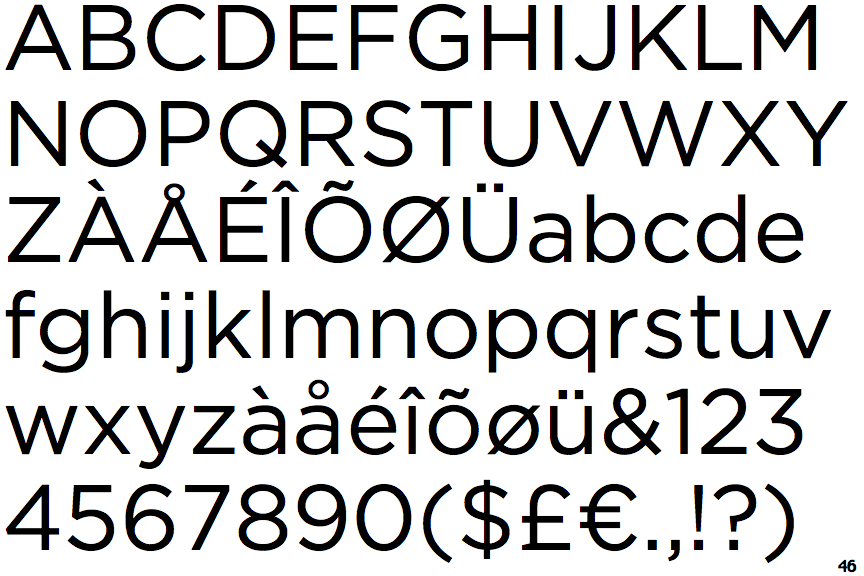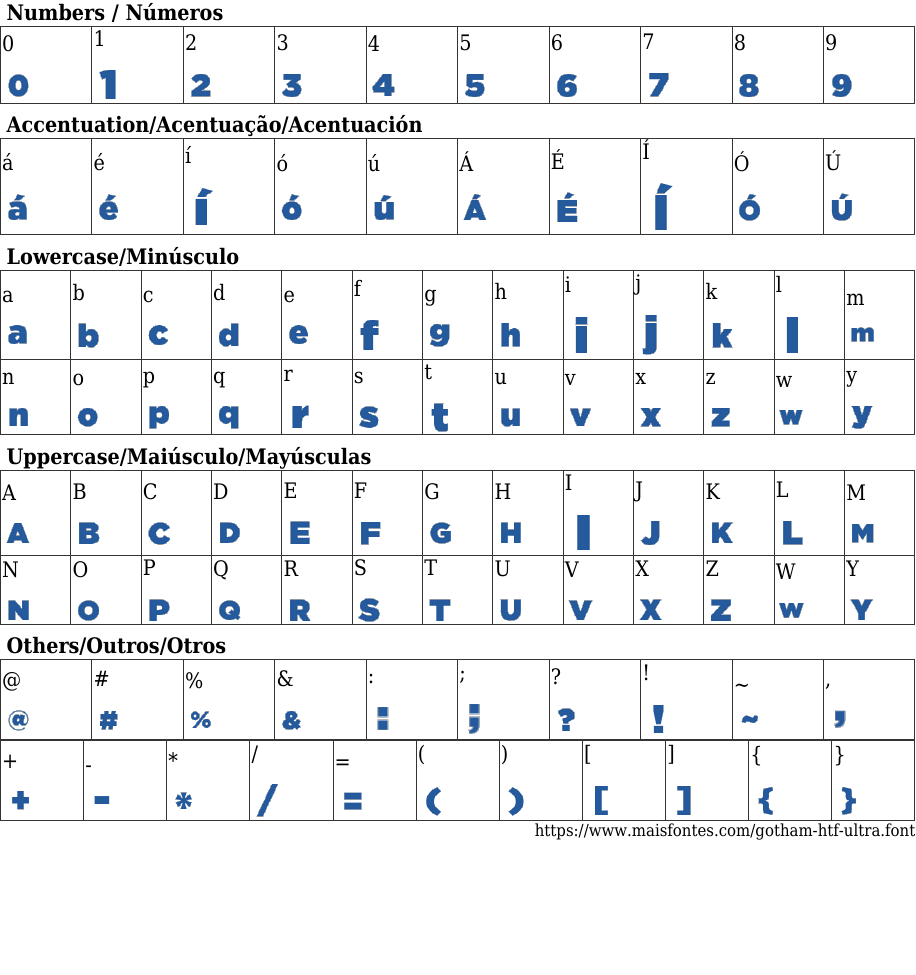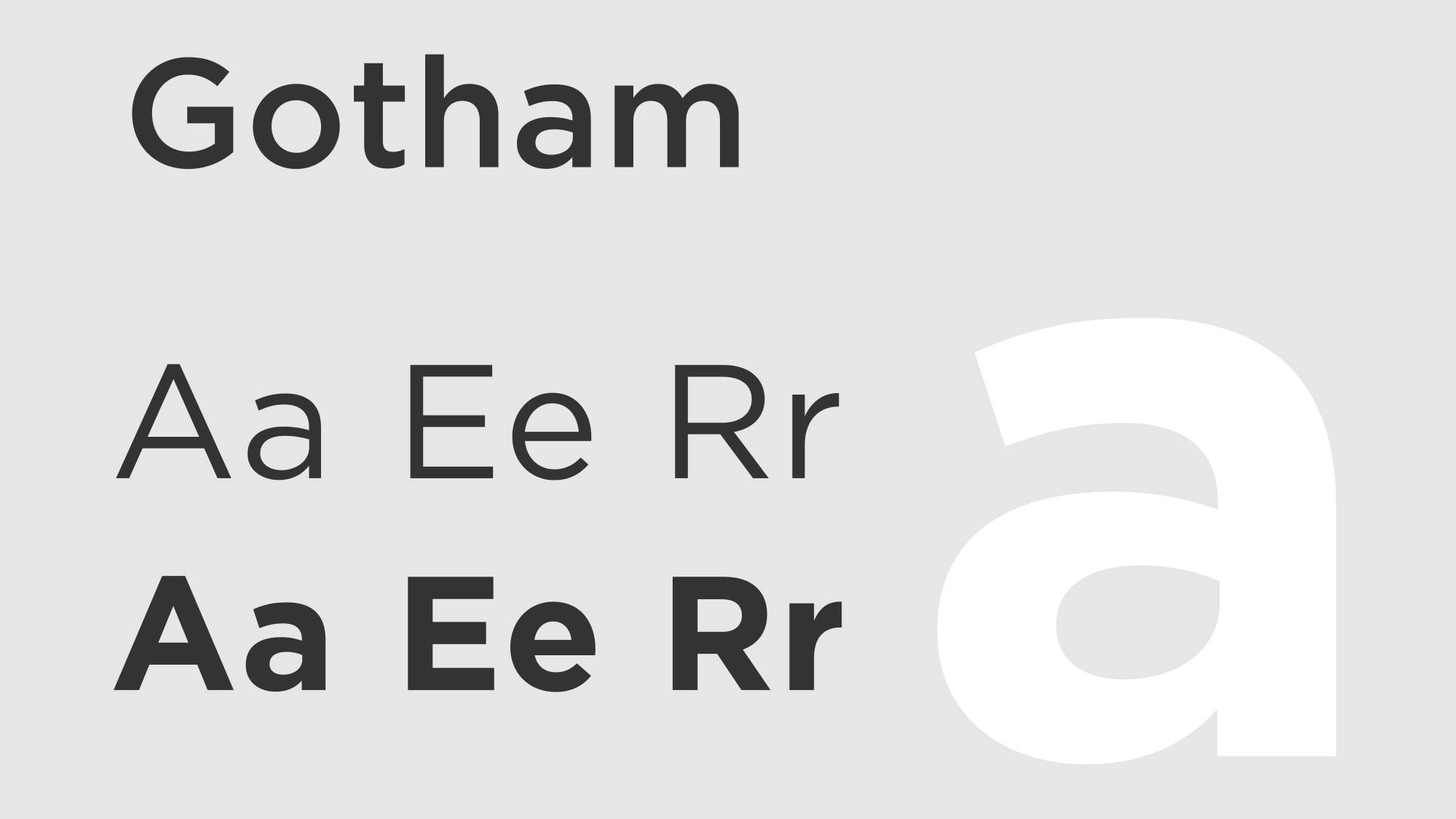
Htf Gotham Font - 'find my font' is an easy to use application for identifying fonts in digital images. Gotham htf font family series mainly provide medium italic,medium,bold italic,bold and other font styles. Here are some fonts similar to gotham htf. Gotham htf simply means an old version of the gotham typeface.
Gotham htf simply means an old version of the gotham typeface. Here are some fonts similar to gotham htf. 'find my font' is an easy to use application for identifying fonts in digital images. Gotham htf font family series mainly provide medium italic,medium,bold italic,bold and other font styles.
Gotham htf simply means an old version of the gotham typeface. 'find my font' is an easy to use application for identifying fonts in digital images. Here are some fonts similar to gotham htf. Gotham htf font family series mainly provide medium italic,medium,bold italic,bold and other font styles.
Here are some fonts similar to gotham htf. Gotham htf font family series mainly provide medium italic,medium,bold italic,bold and other font styles. Gotham htf simply means an old version of the gotham typeface. 'find my font' is an easy to use application for identifying fonts in digital images.
Gotham htf font family series mainly provide medium italic,medium,bold italic,bold and other font styles. Here are some fonts similar to gotham htf. 'find my font' is an easy to use application for identifying fonts in digital images. Gotham htf simply means an old version of the gotham typeface.
Gotham htf simply means an old version of the gotham typeface. 'find my font' is an easy to use application for identifying fonts in digital images. Here are some fonts similar to gotham htf. Gotham htf font family series mainly provide medium italic,medium,bold italic,bold and other font styles.
Here are some fonts similar to gotham htf. 'find my font' is an easy to use application for identifying fonts in digital images. Gotham htf simply means an old version of the gotham typeface. Gotham htf font family series mainly provide medium italic,medium,bold italic,bold and other font styles.
Gotham htf font family series mainly provide medium italic,medium,bold italic,bold and other font styles. 'find my font' is an easy to use application for identifying fonts in digital images. Gotham htf simply means an old version of the gotham typeface. Here are some fonts similar to gotham htf.
Here are some fonts similar to gotham htf. Gotham htf font family series mainly provide medium italic,medium,bold italic,bold and other font styles. 'find my font' is an easy to use application for identifying fonts in digital images. Gotham htf simply means an old version of the gotham typeface.
Here are some fonts similar to gotham htf. Gotham htf font family series mainly provide medium italic,medium,bold italic,bold and other font styles. Gotham htf simply means an old version of the gotham typeface. 'find my font' is an easy to use application for identifying fonts in digital images.
Gotham htf simply means an old version of the gotham typeface. Here are some fonts similar to gotham htf. Gotham htf font family series mainly provide medium italic,medium,bold italic,bold and other font styles. 'find my font' is an easy to use application for identifying fonts in digital images.
Gotham htf font family series mainly provide medium italic,medium,bold italic,bold and other font styles. Gotham htf simply means an old version of the gotham typeface. 'find my font' is an easy to use application for identifying fonts in digital images. Here are some fonts similar to gotham htf.
Gotham Htf Simply Means An Old Version Of The Gotham Typeface.
Gotham htf font family series mainly provide medium italic,medium,bold italic,bold and other font styles. Here are some fonts similar to gotham htf. 'find my font' is an easy to use application for identifying fonts in digital images.